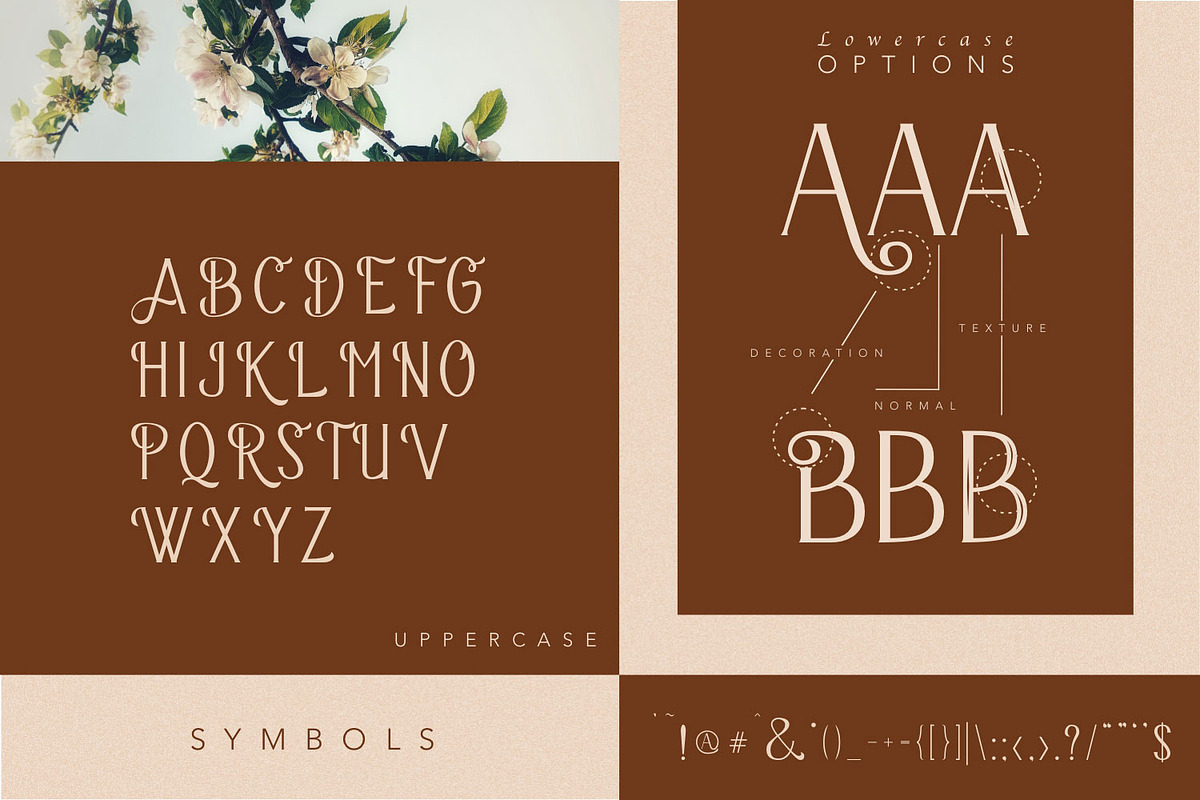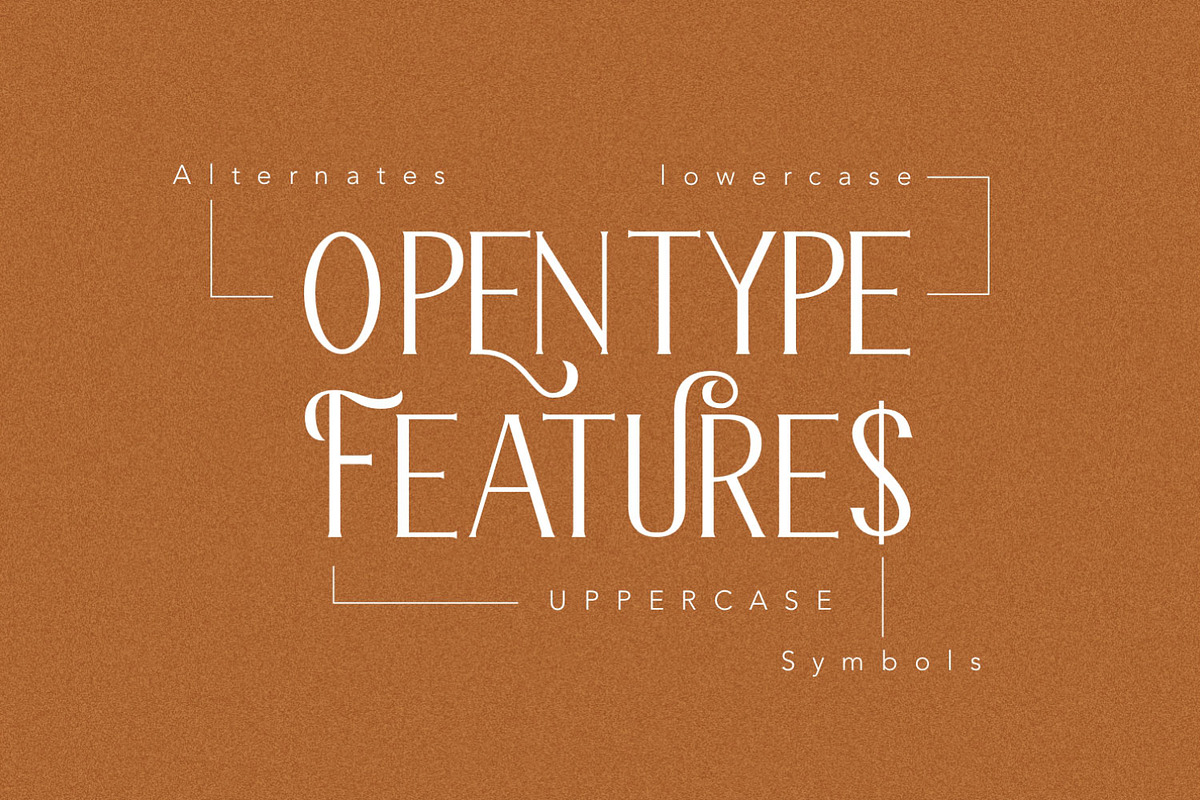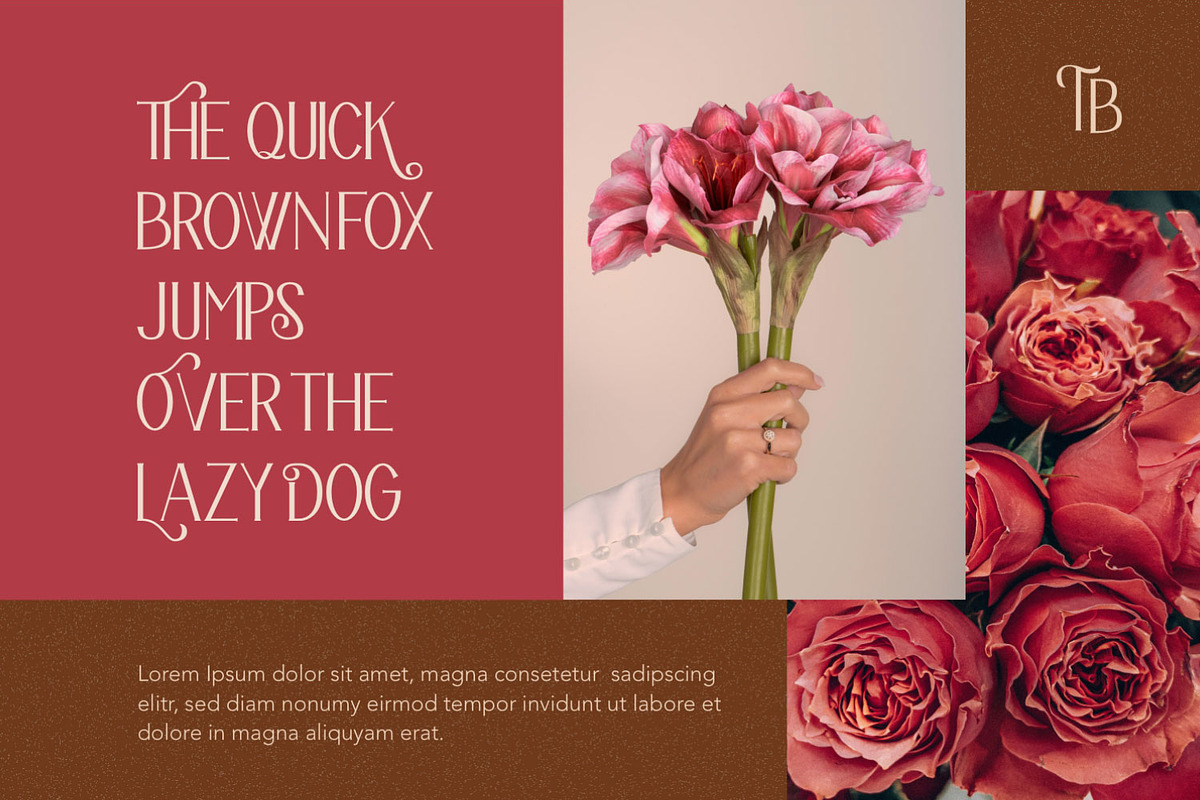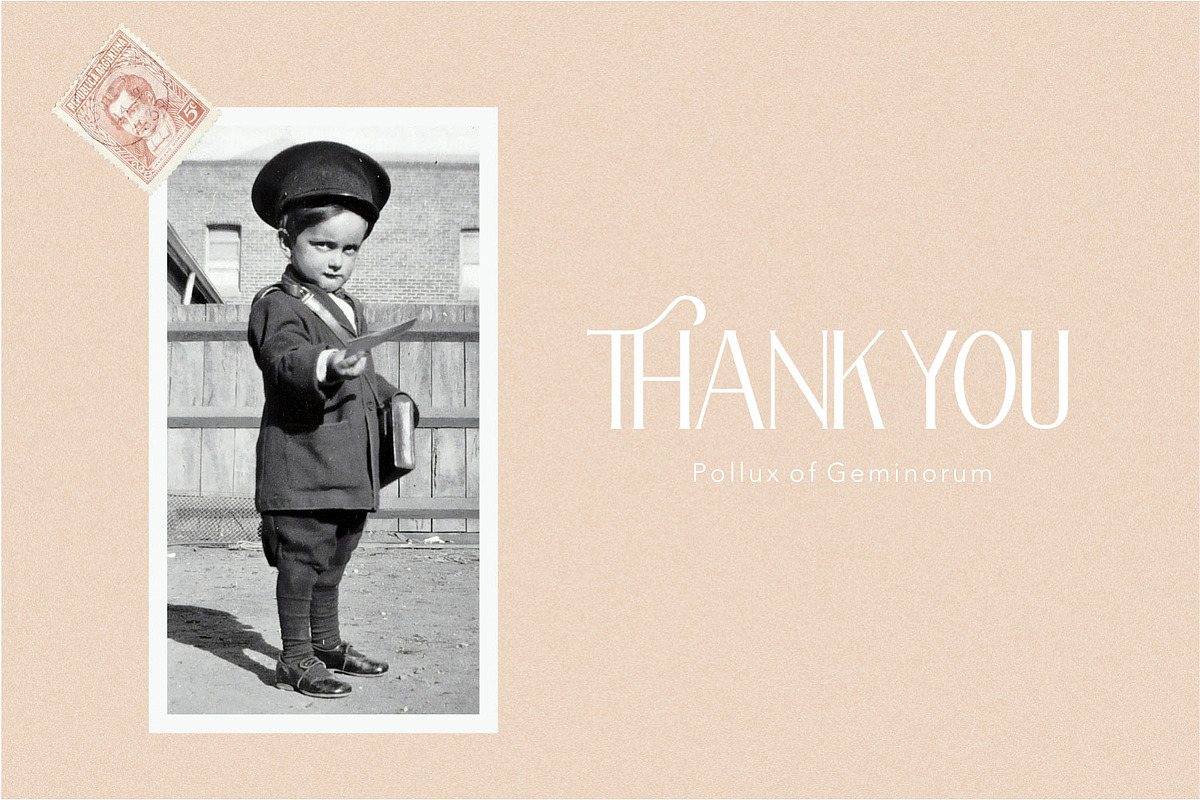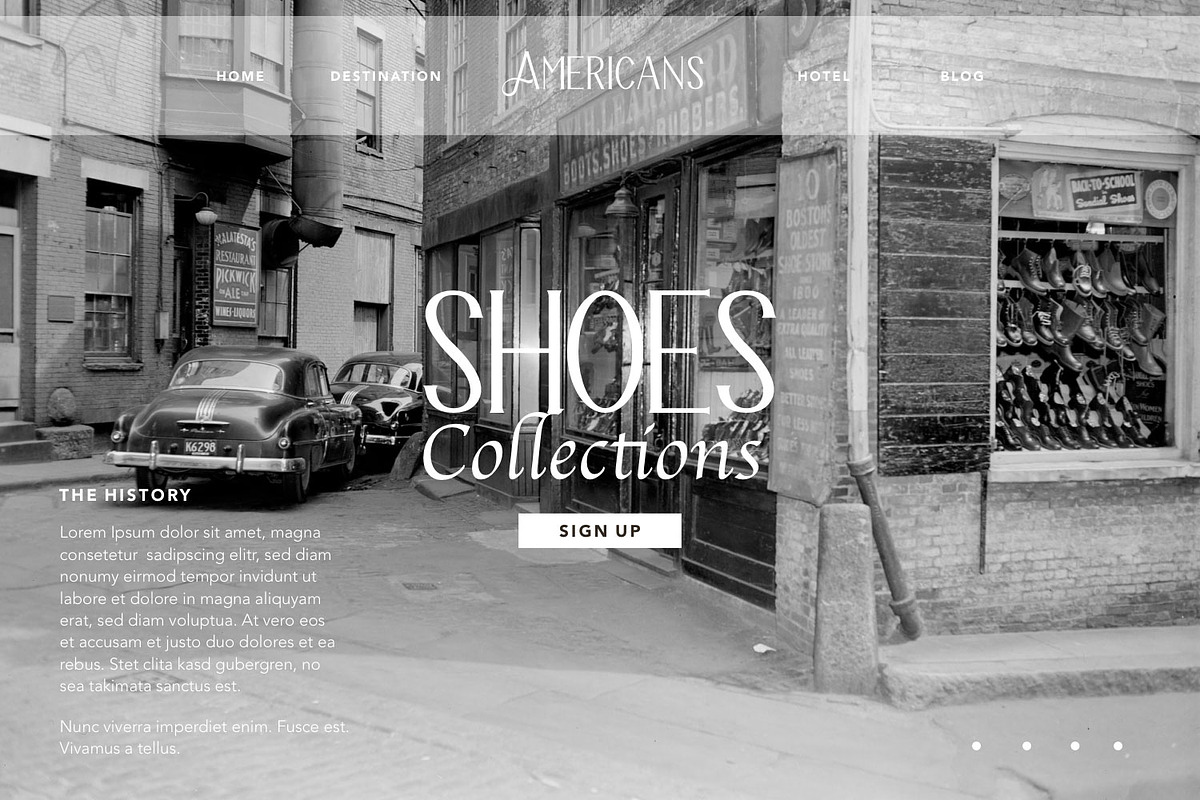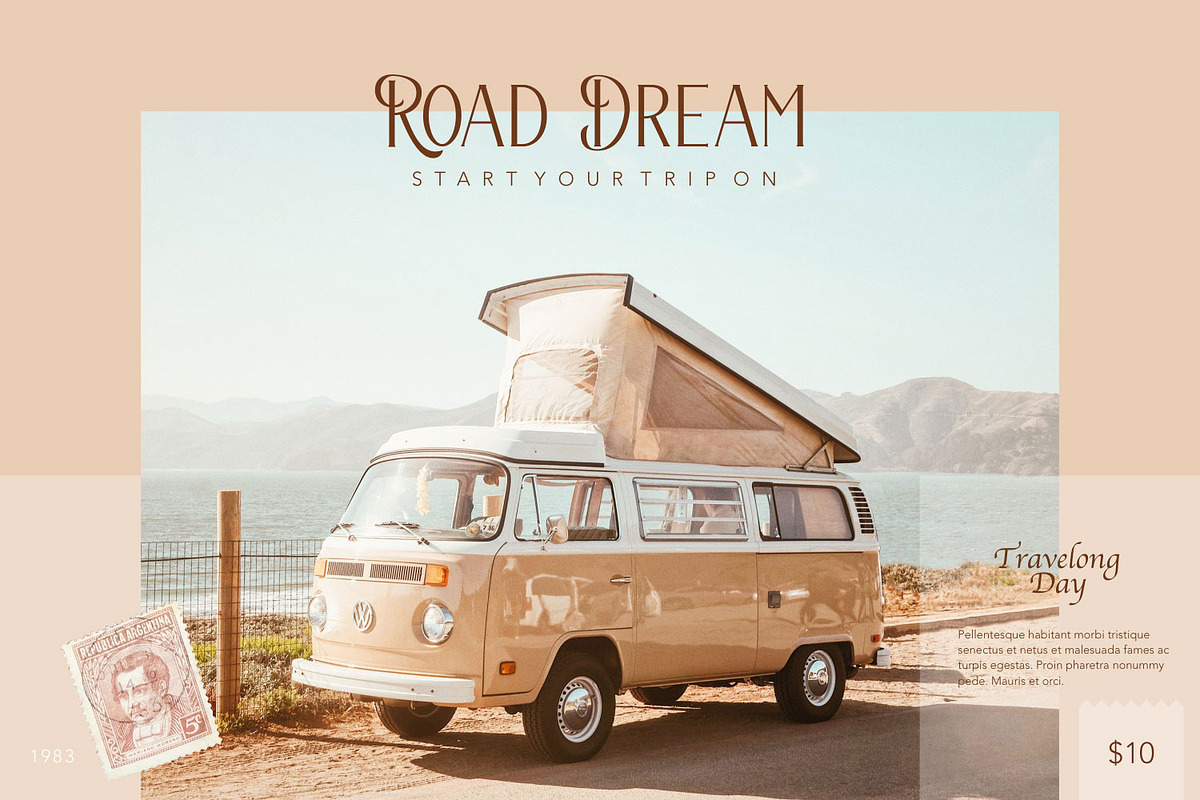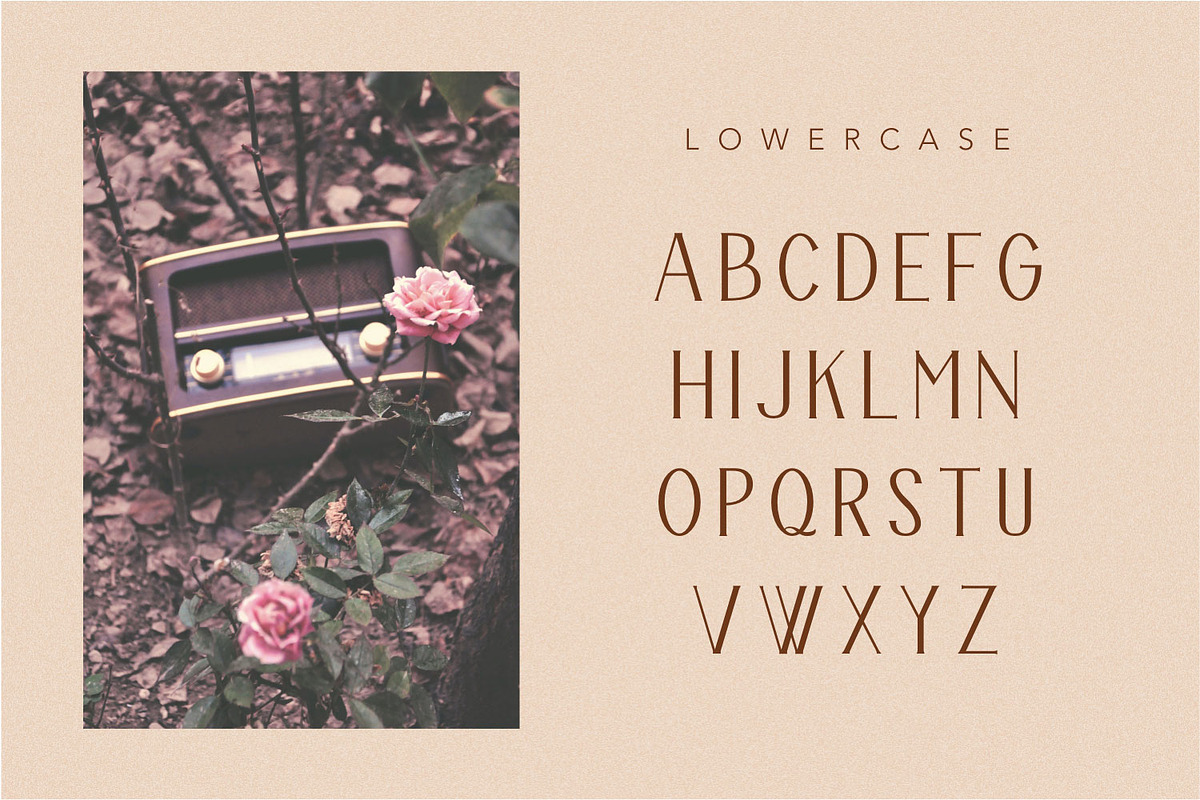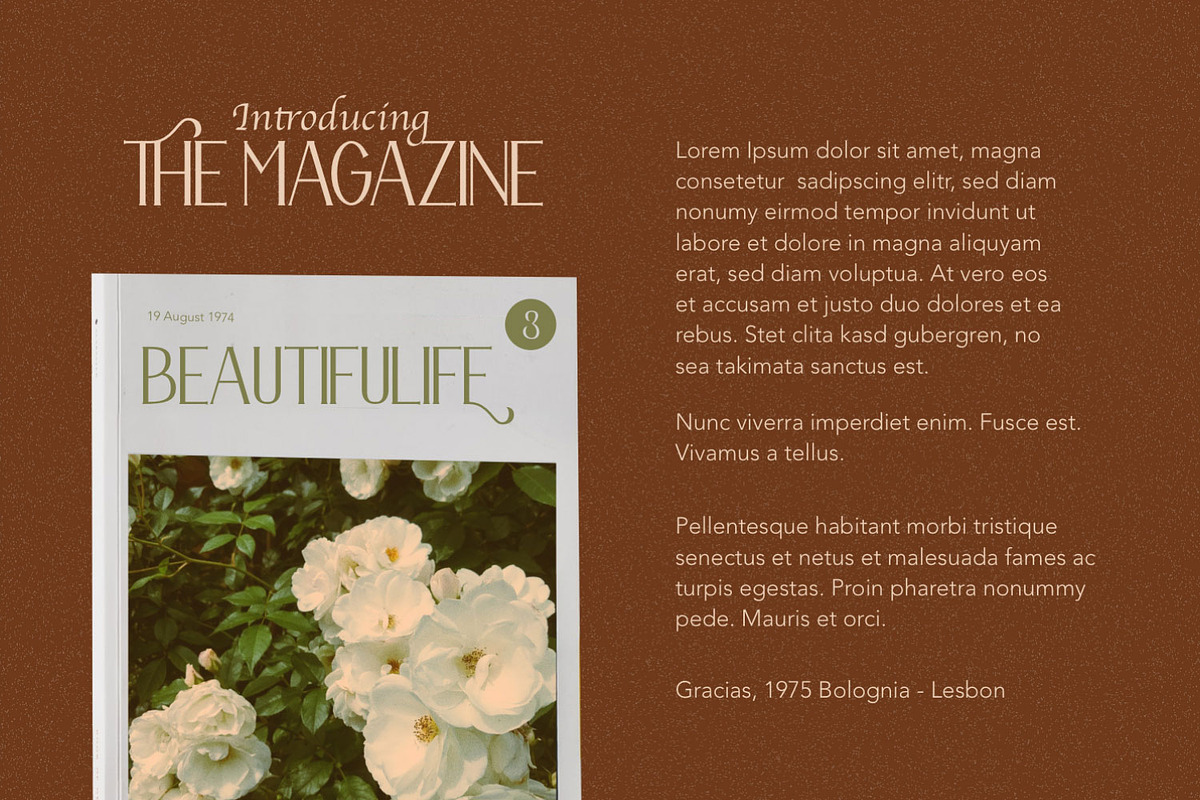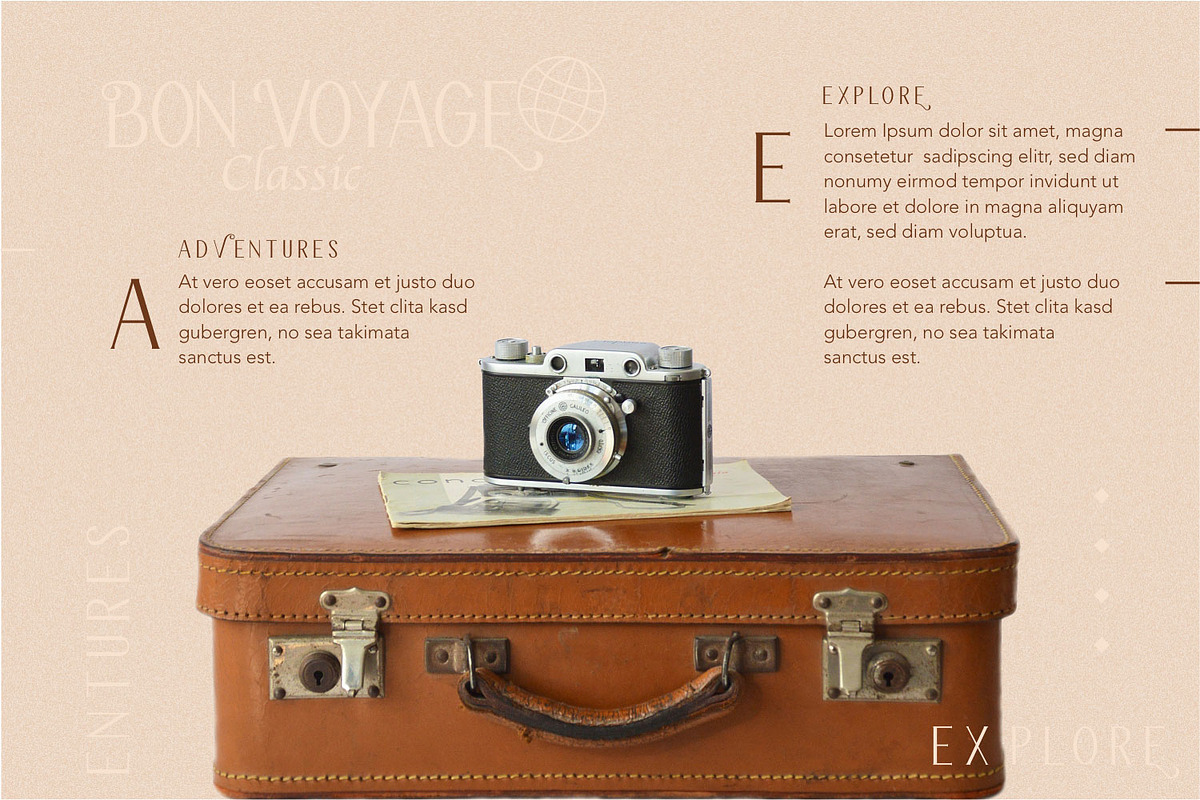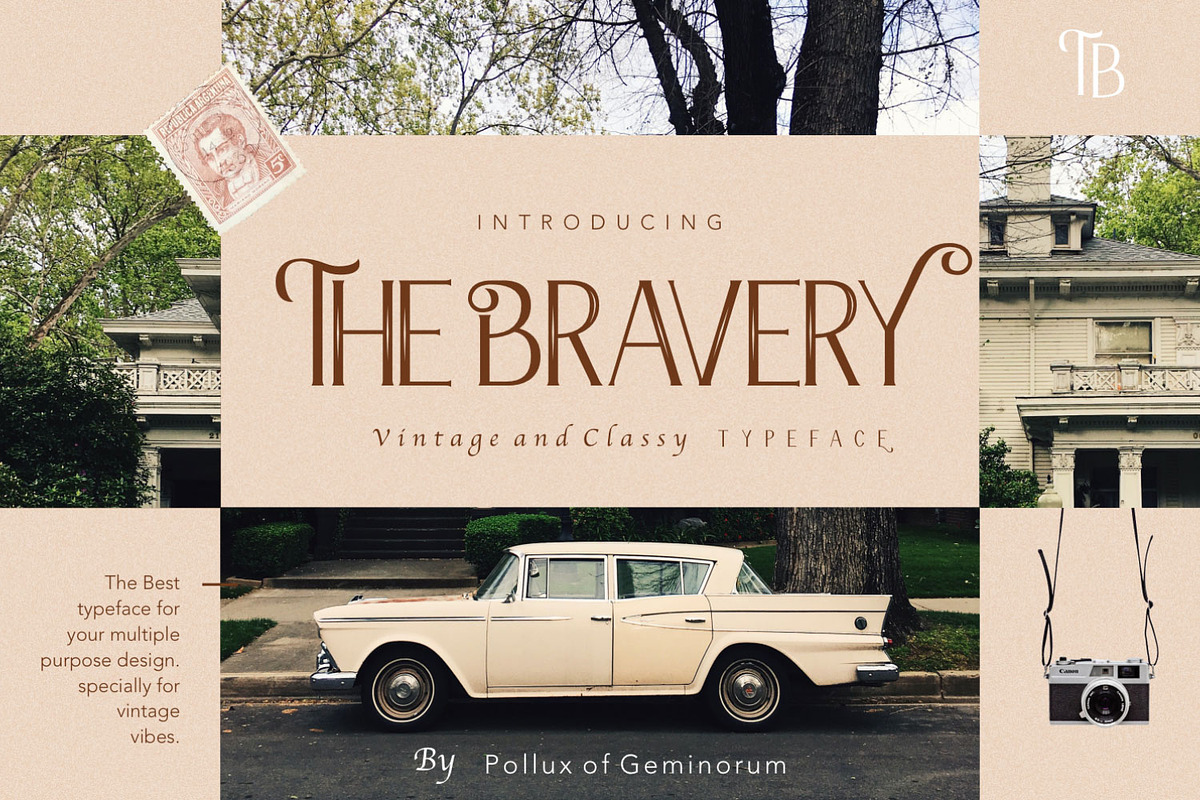
The Bravery
Pollux of Geminorum presents The Bravery Typeface. All-caps font with classic style. With OpenType features, Stylistic Alternates and Swash. You can mix and match the letters also combine them with an alternate that will make this font eye-catching and look stylish. To access the alternate glyphs, you need a program that supports OpenType features such as Adobe Illustrator CS and Adobe Indesign. For more information about how to access alternate glyphs, you can see it on this link (https://goo.gl/skk5Tm). You can use this font as headline, logo, wedding invitation, t-shirt design, posters, label, book cover, greeting card, etc.